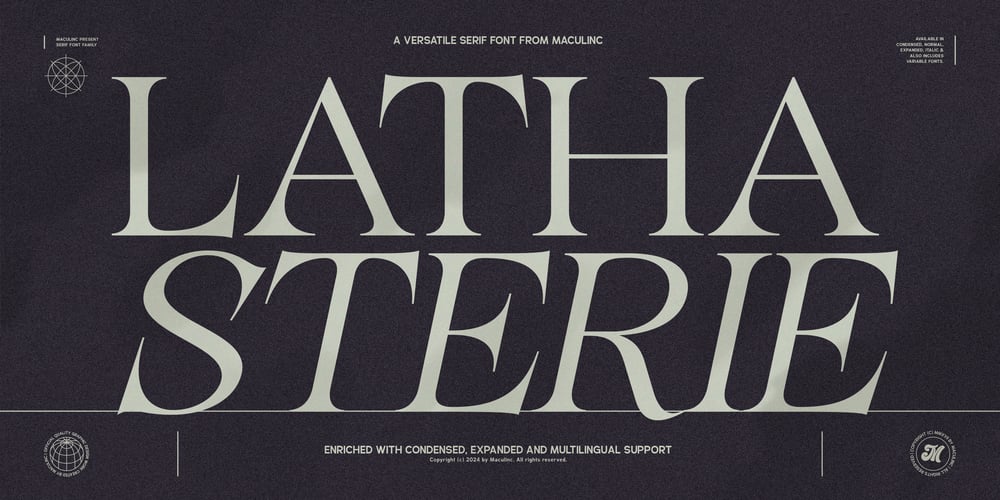
Lathasterie Variable Serif Family Font Family was designed by Lukmanul Khikmatullah and published by Maculinc. Lathasterie Variable Serif Family contains 38 styles and family package options. We present Lathasterie Serif Font ๐ A beautiful font family with various weights and heights – In Regular and Italic styles – over 30 fonts in total. Two handy variable fonts are included if you have software that can read variable fonts. Equipped with numbers, punctuation and multilingual support.Lathasterie Serif is unique and stylish, available in short, normal, long and italic formats. With a retro touch, this font is capable of creating stunning works, made to be very versatile – can be transformed into sophisticated and complex projects – or bold and daring retro designs. Just take your pick ๐ Use the Typeface tester below to type your text and try it out!36 Font Family2 Variable fontsMultilingual SupportIf you are looking for a custom font or web license, and for support, feel free to contact us at maculinc@gmail.comThank you for visiting us and don’t forget to follow us :Behance ( https://www.behance.net/maculinc )Dribbble ( https://dribbble.com/Maculinc )Instagram ( https://www.instagram.com/maculinc/ )